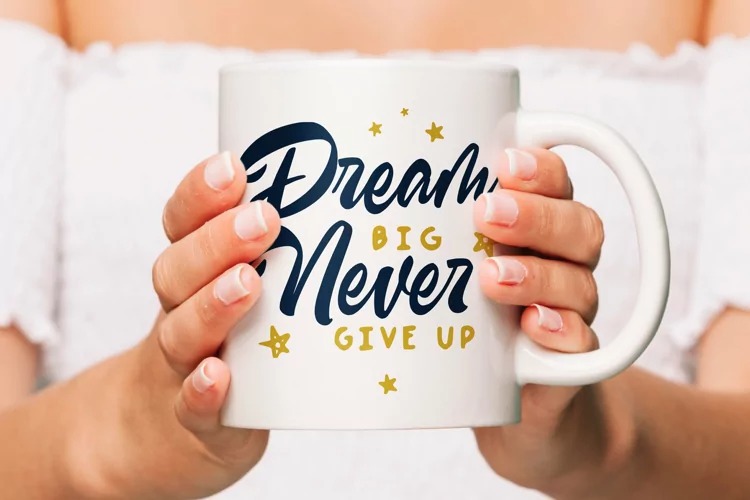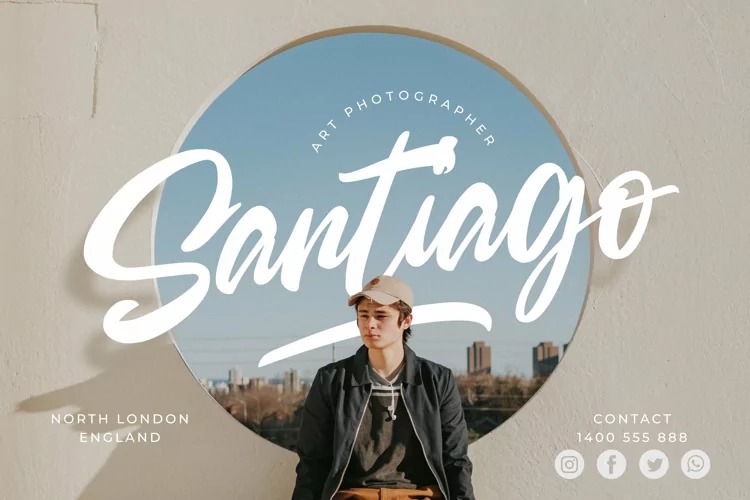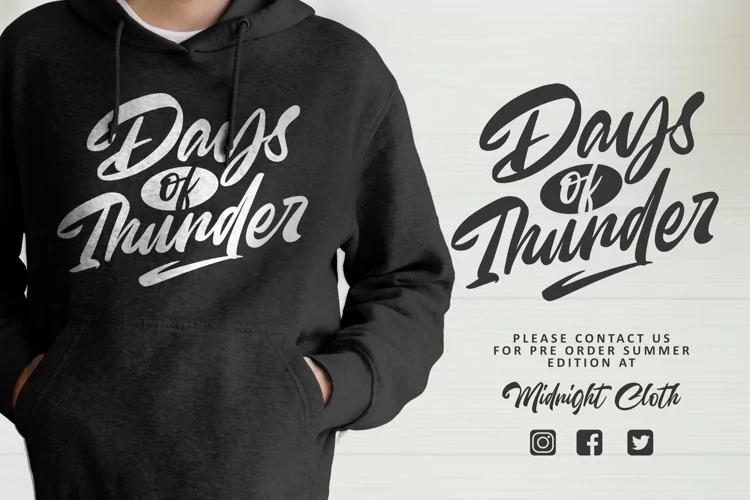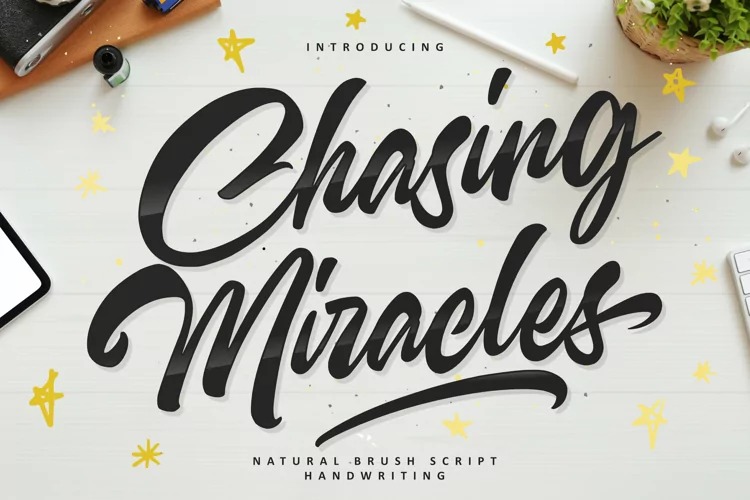
Chasing Miracles Script Font
This font is a retro bold script which will bring you back to 70s feel. No matter the topic, this font will be an incredible asset to your fonts’ library, as it has the potential to elevate any creation.
Chasing Miracles is perfect for branding projects, logo, wedding designs, social media posts, advertisements, product packaging, product designs, label, photography, watermark, invitation, stationery and anything that you want.